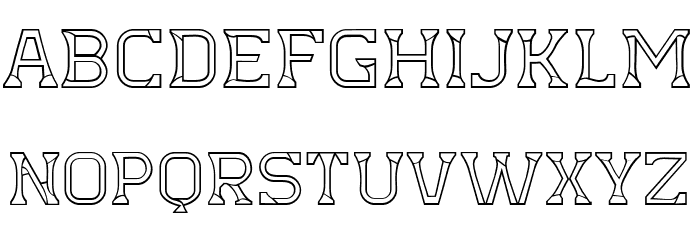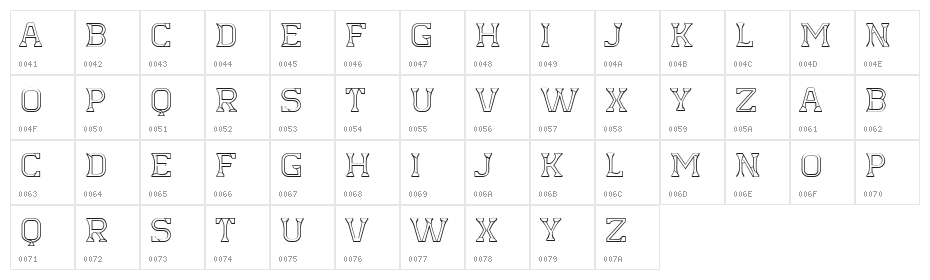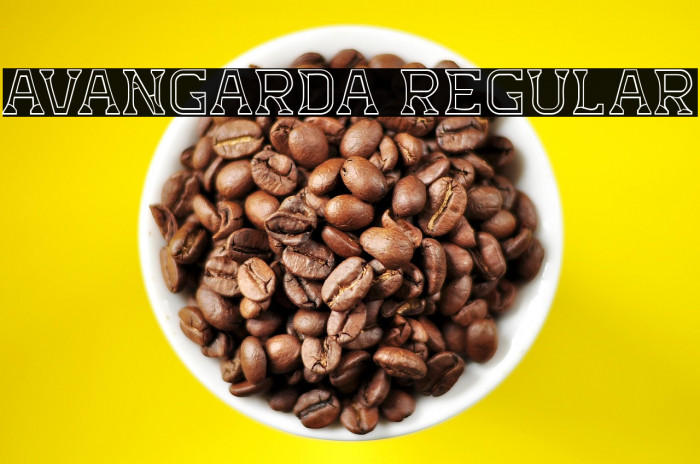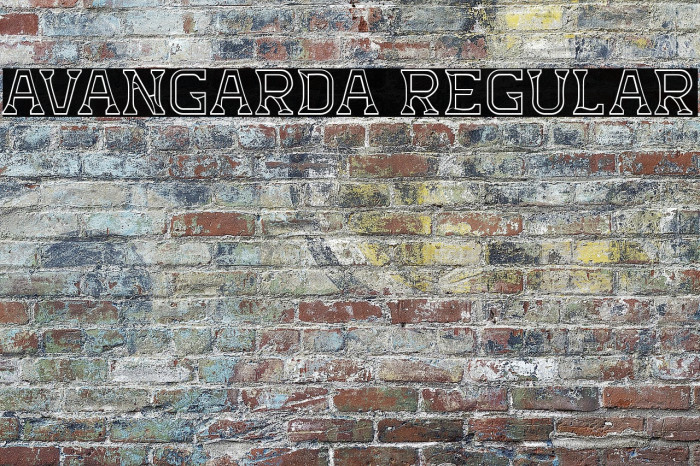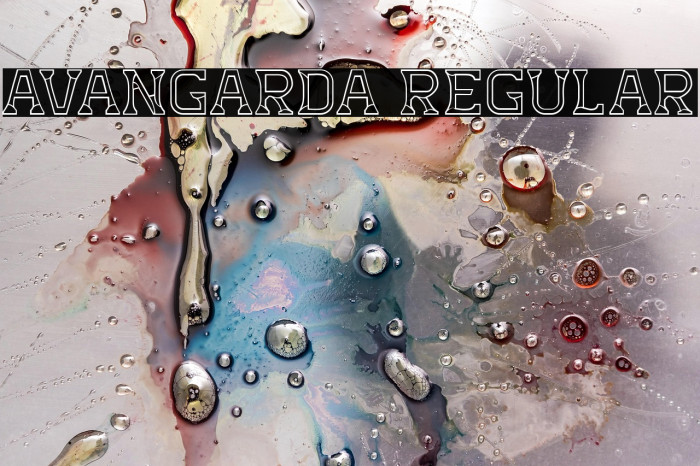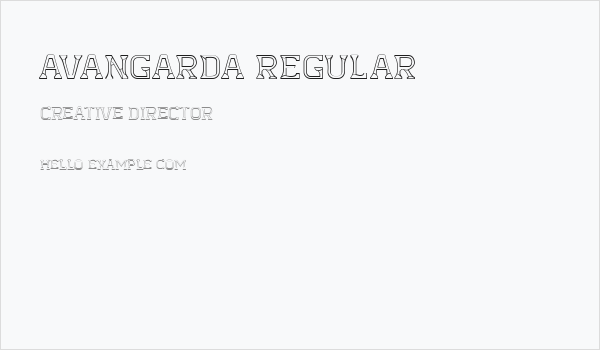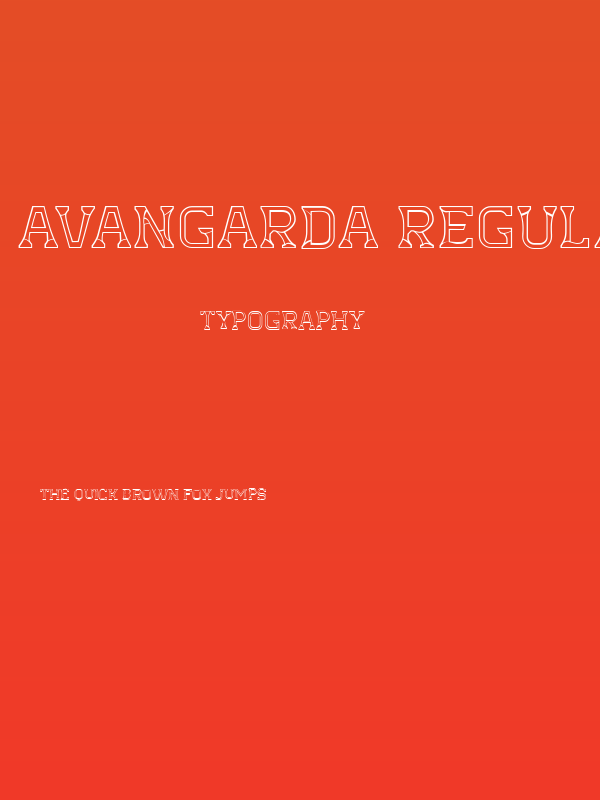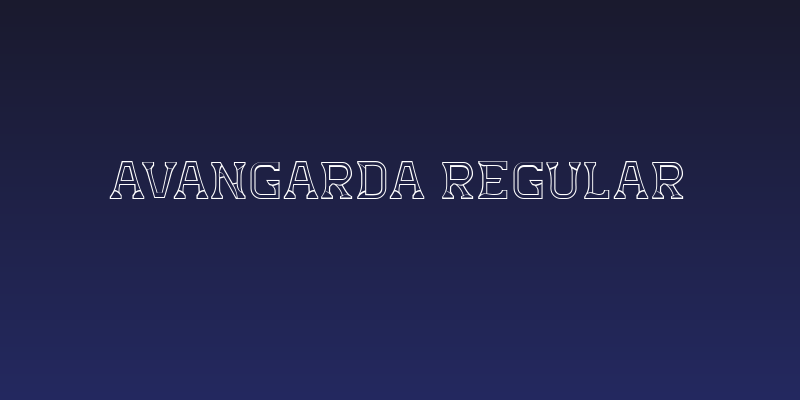
Avangarda Regular Font
This font features a unique and artistic design with a hollow, outlined style that gives it a distinctive and modern appearance. The characters are bold and angular, with sharp edges and a geometric structure that creates a sense of depth and dimension. The uppercase letters are particularly striking, with a uniform height and consistent spacing that enhances readability. The font's design is both decorative and functional, making it suitable for a variety of creative projects. Its clean lines and open spaces give it a contemporary feel, while the bold outlines add a touch of elegance and sophistication.
A modern, outlined font with bold, angular characters and a geometric design.
- Proposed Projects: Ideal for branding, poster design, headlines, and any project requiring a modern and artistic touch.